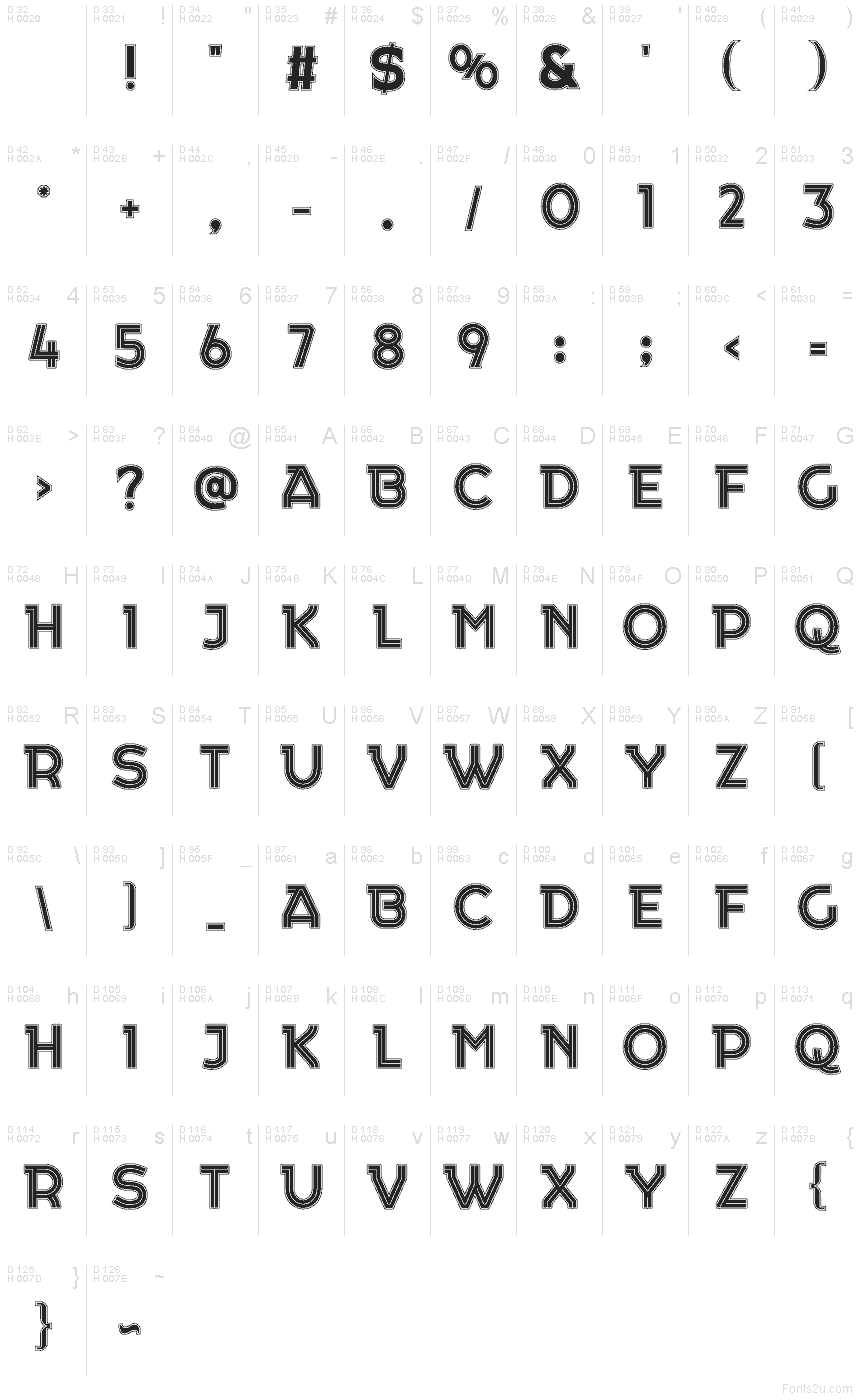
Stockport SS 2 font by Trequartista Studio is a free decorative display font. Built within the Stockport family, it’s defined by concentric ringed strokes that read like neon tubing or vinyl grooves-crisp, layered, and unmistakably dimensional. The geometry is tight and rhythmic, so letters lock together with a satisfying snap while the outlined lines add motion without clutter.
Using Stockport SS 2, headlines jump off the page-think posters, nightlife flyers, album covers, storefront signage, tech logos, and event titles. This free font shines at large sizes with a touch of extra tracking to let the rings breathe. For supporting text, pair it with a plain sans-serif to keep the shapes in the spotlight.